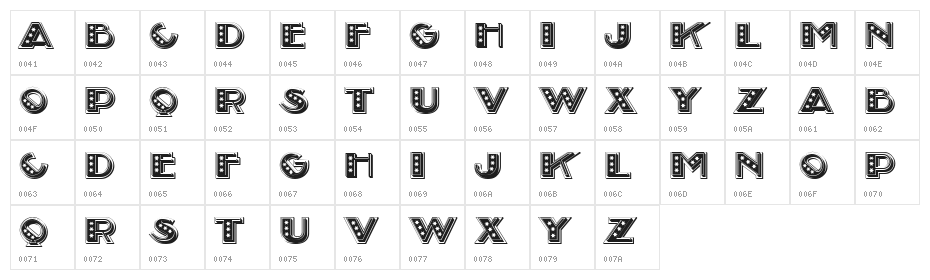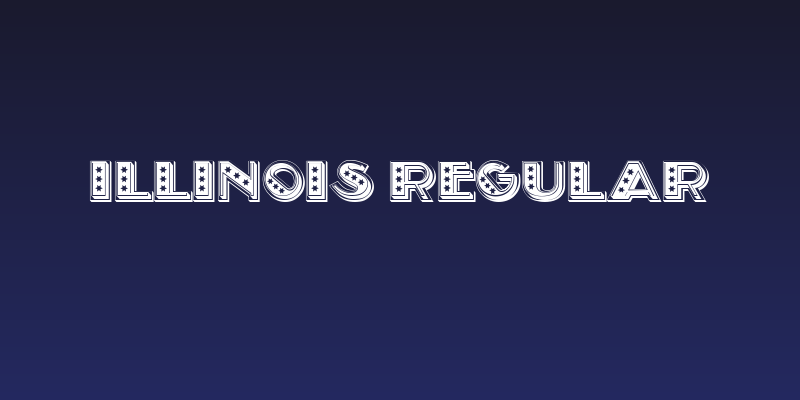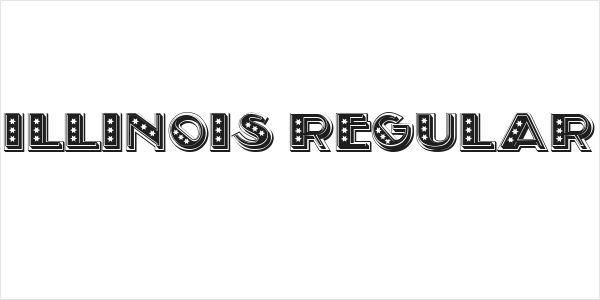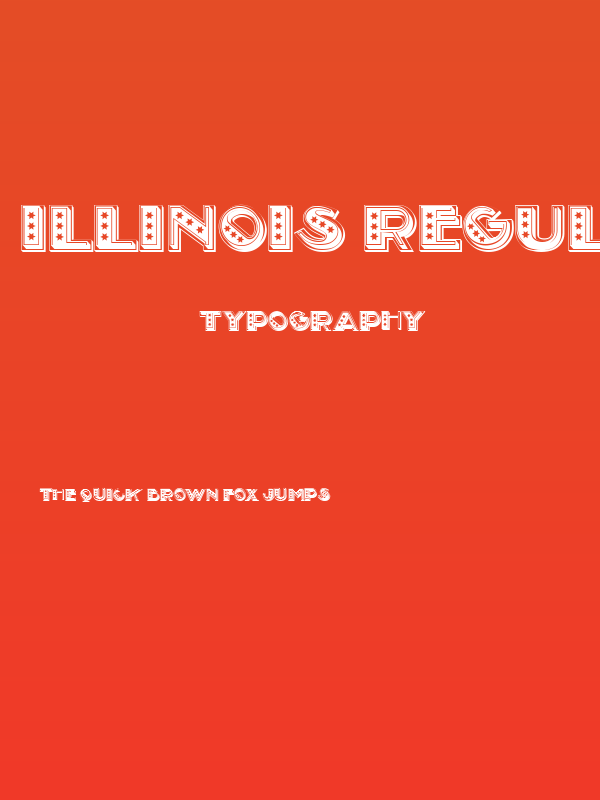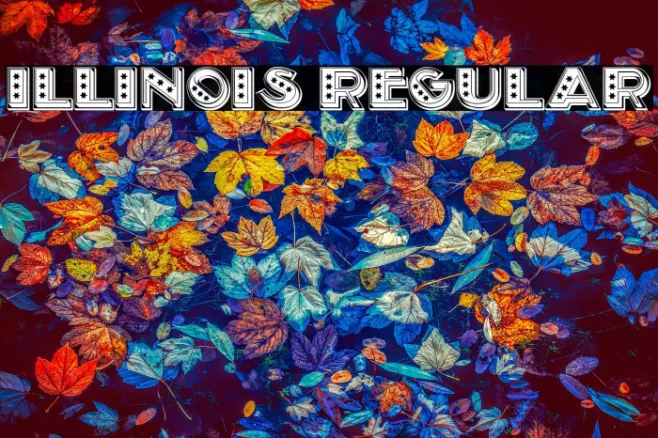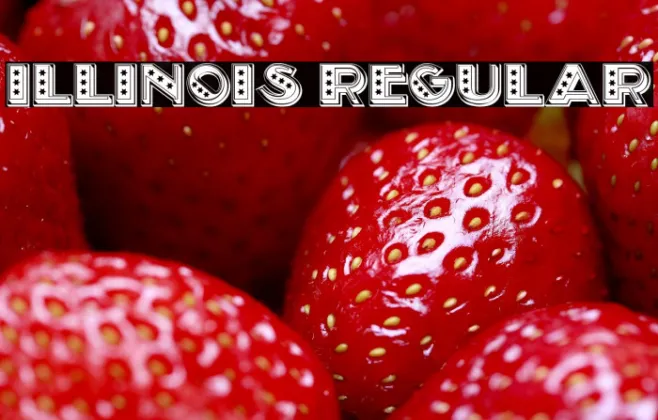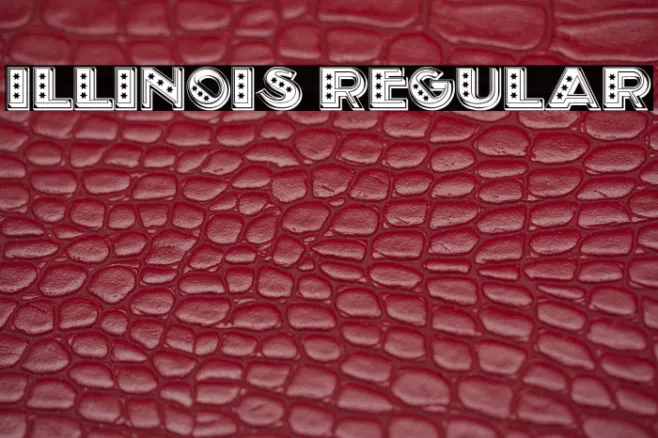
Illinois Regular Font
Illinois Regular Description
This font features a bold, decorative style with a unique pattern of stars and stripes within each character, reminiscent of classic Americana themes. The letters are outlined with a thick border, adding to their striking appearance. The design is highly detailed, with each character exhibiting a playful yet structured form. This font captures attention with its intricate design, making it ideal for projects that require a standout visual element. The uppercase letters are uniform in height, providing a cohesive look across the alphabet.
| Proposed Projects | Perfect for patriotic-themed posters, event banners, or any design needing a bold, eye-catching typeface. |